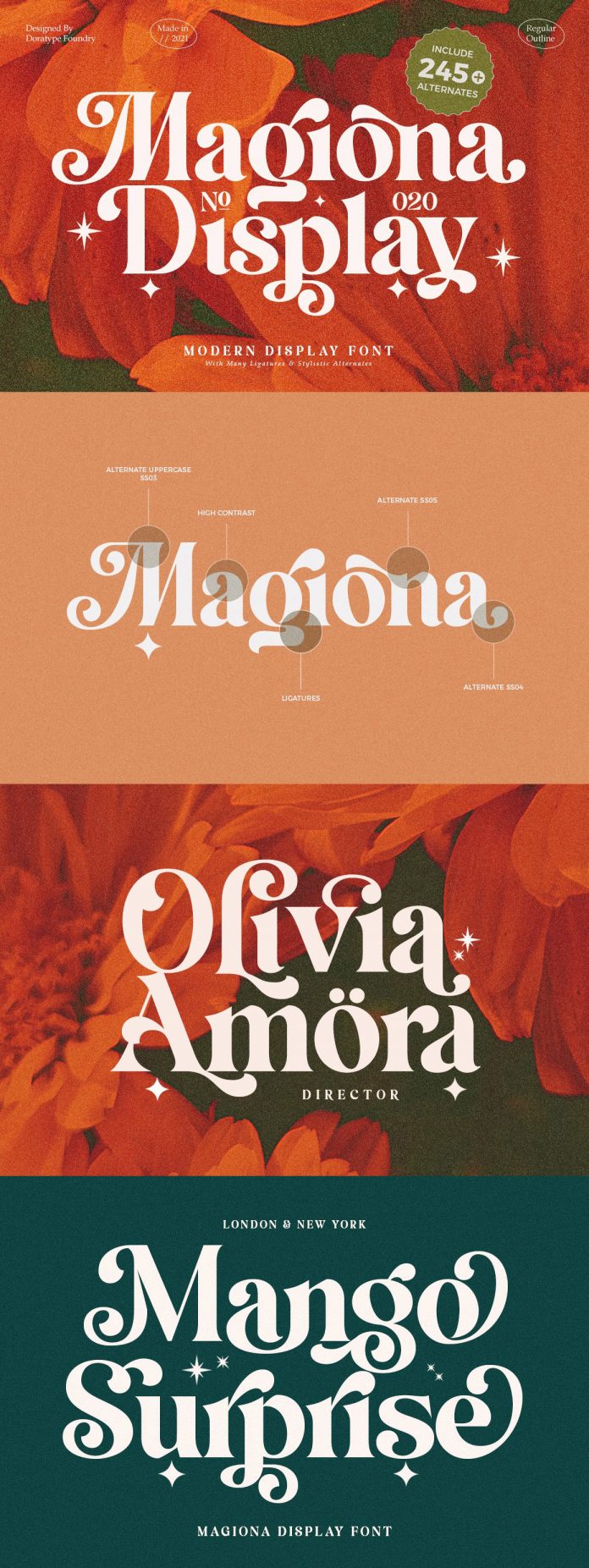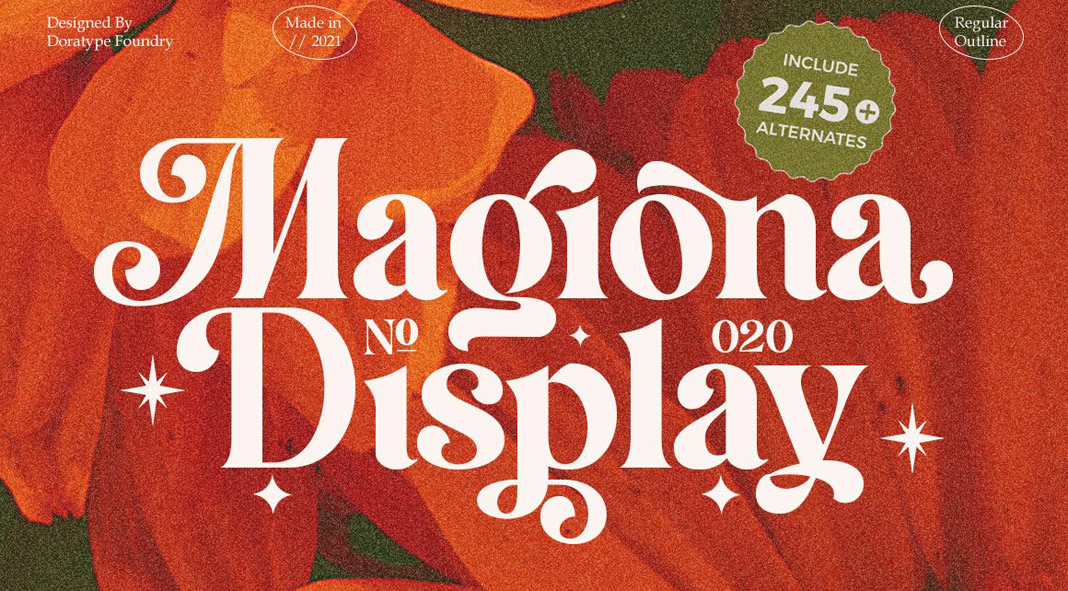
Magiona Display — the reinterpretation of a classic serif font.
Magiona Display is a new typeface based on the design of a classic, elegant serif font. It comes with a filled and an outline version as well as true italics for both styles. This versatile display font works great in both large and small sizes. The typeface is suitable for plenty of projects including headlines, logos, labels, branding projects, magazines, product packaging, quotes, posters, and so much more. Thanks to many alternatives and ligatures, it can look really expressive and fun.